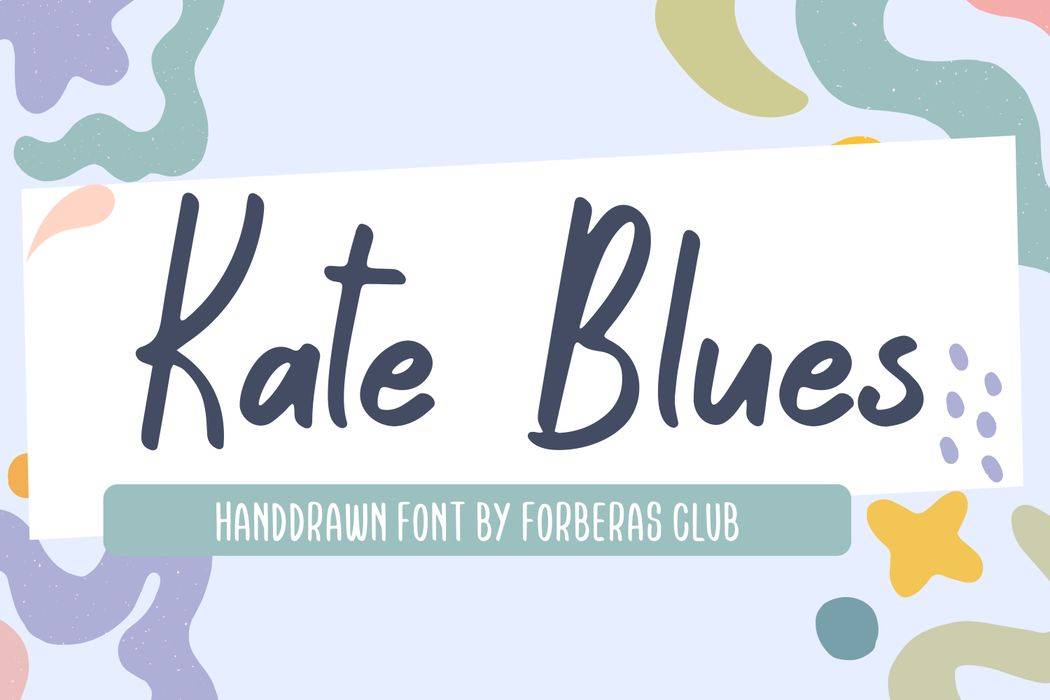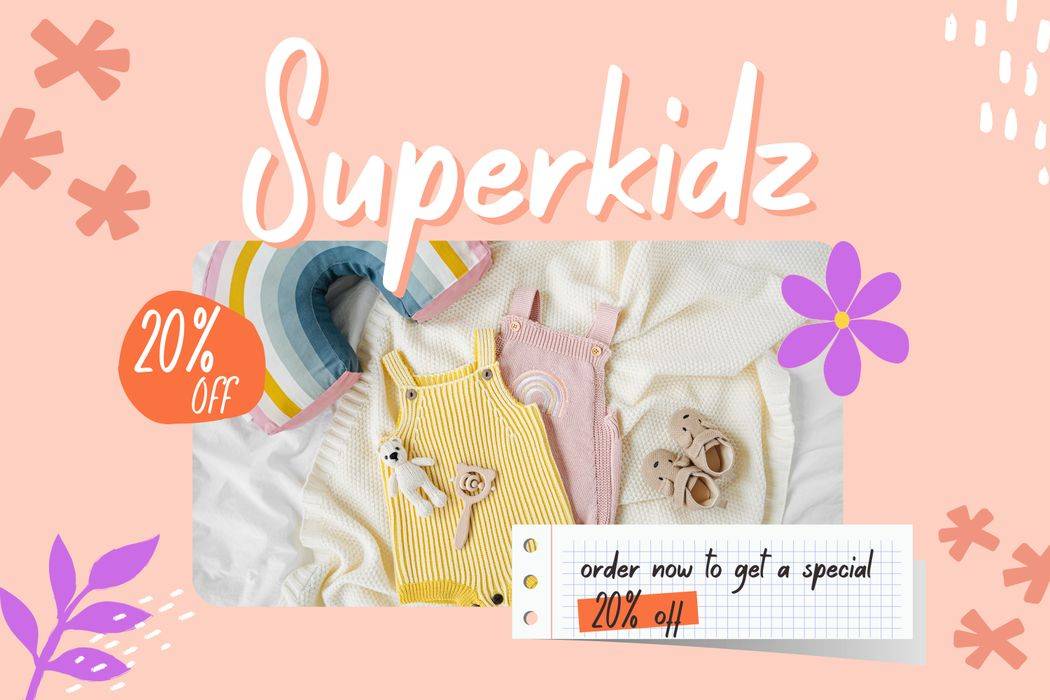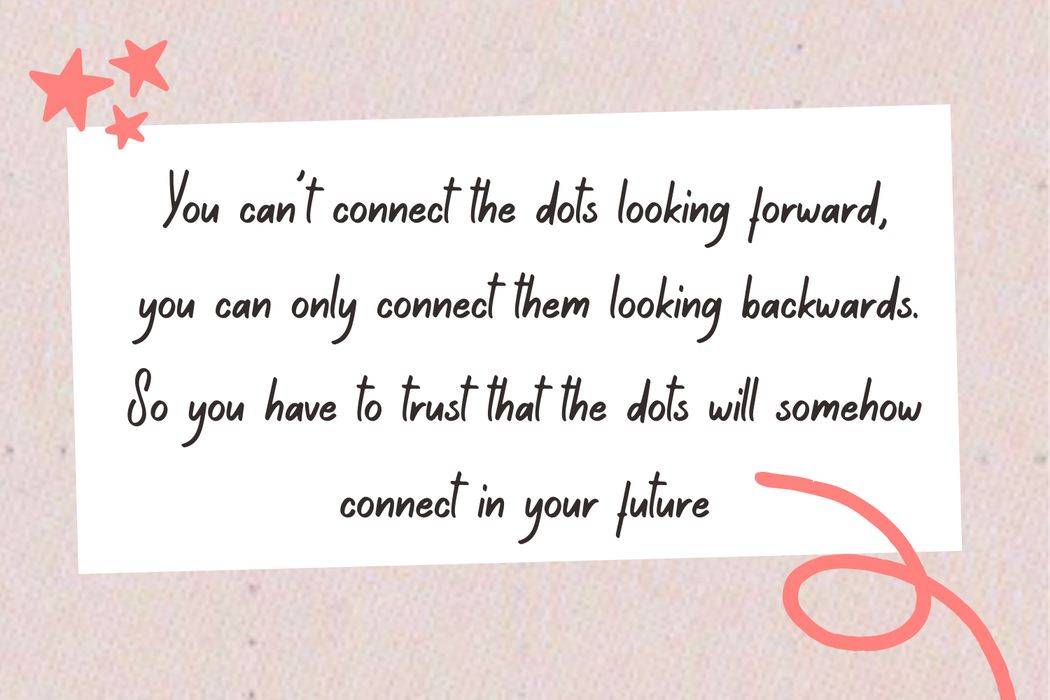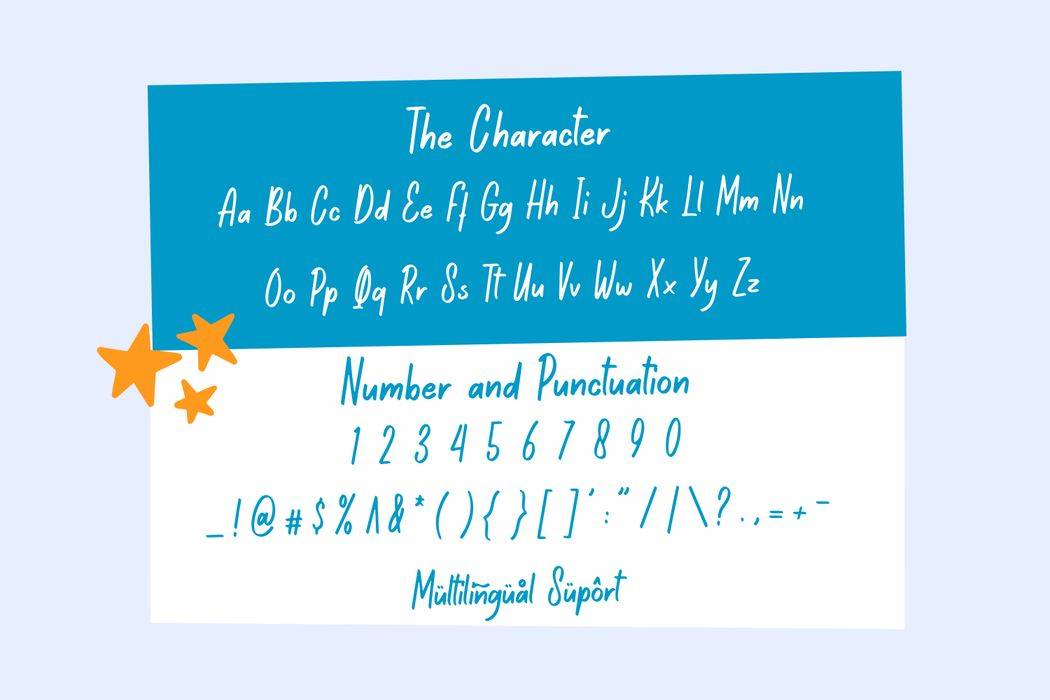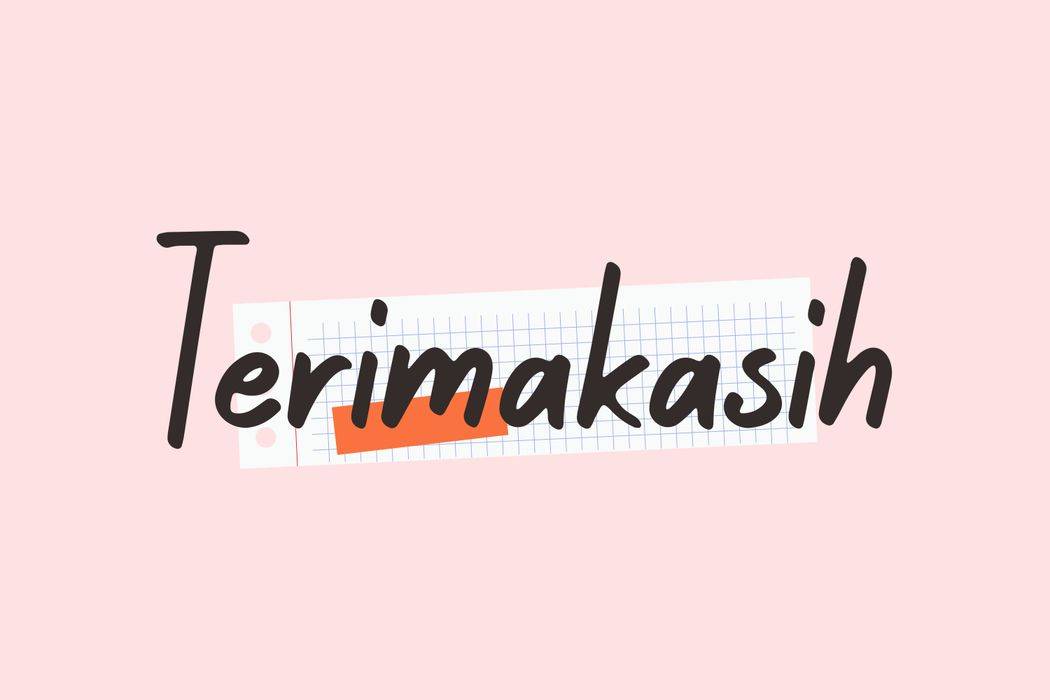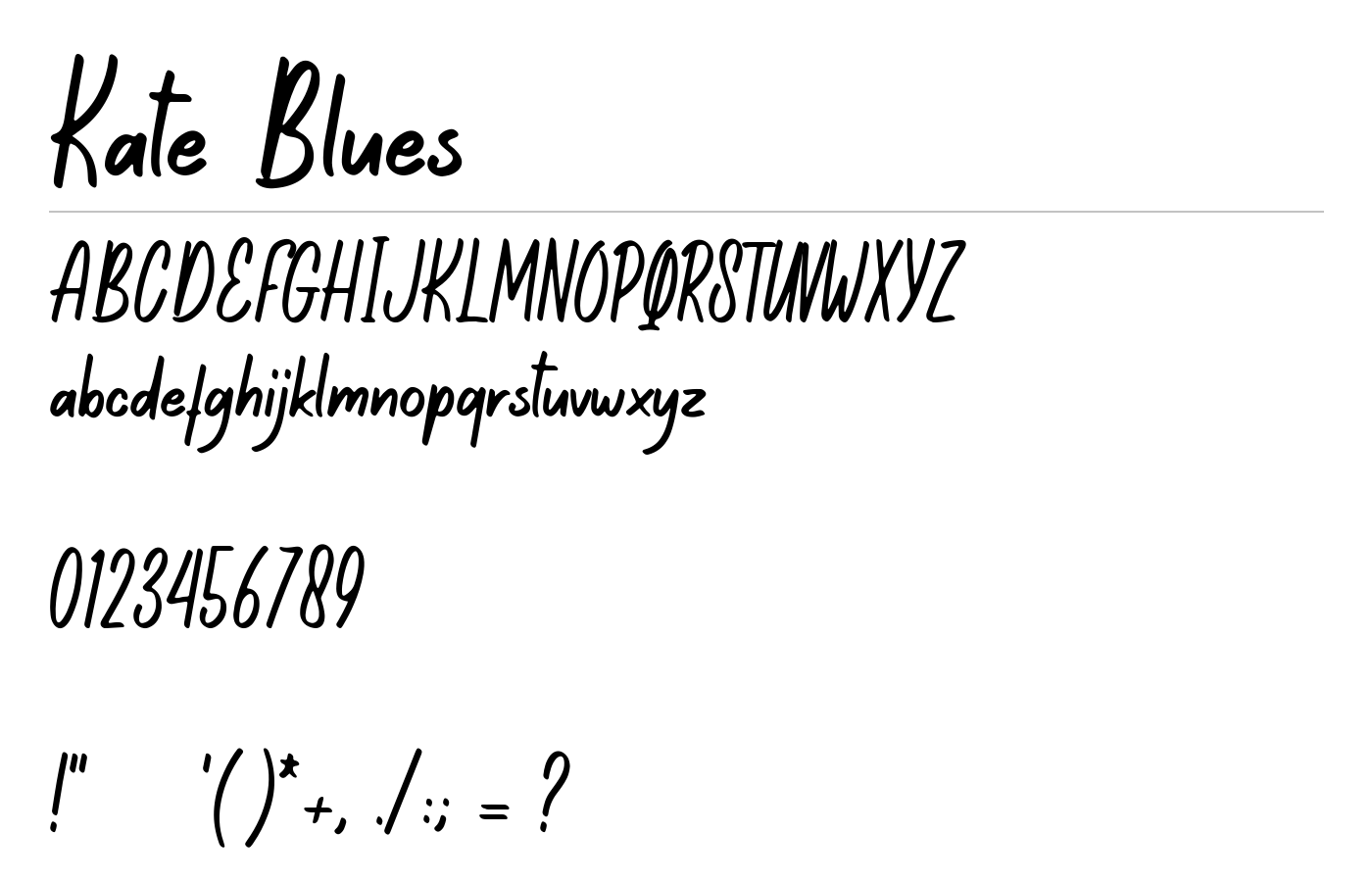
Kate Blues is a lively and elegant handwritten script font with a slender, slightly condensed style that brings a casual yet refined feel. Its tall x-height and smooth, flowing strokes make it perfect for creative projects that need a personal, approachable touch, such as invitations, branding, and editorial headlines. This font’s playful yet polished character works well in designs seeking charm and sophistication without formality.
Kate Blues Font
About Kate Blues Font
| Font family | Kate Blues Font |
| Designer | forberas |